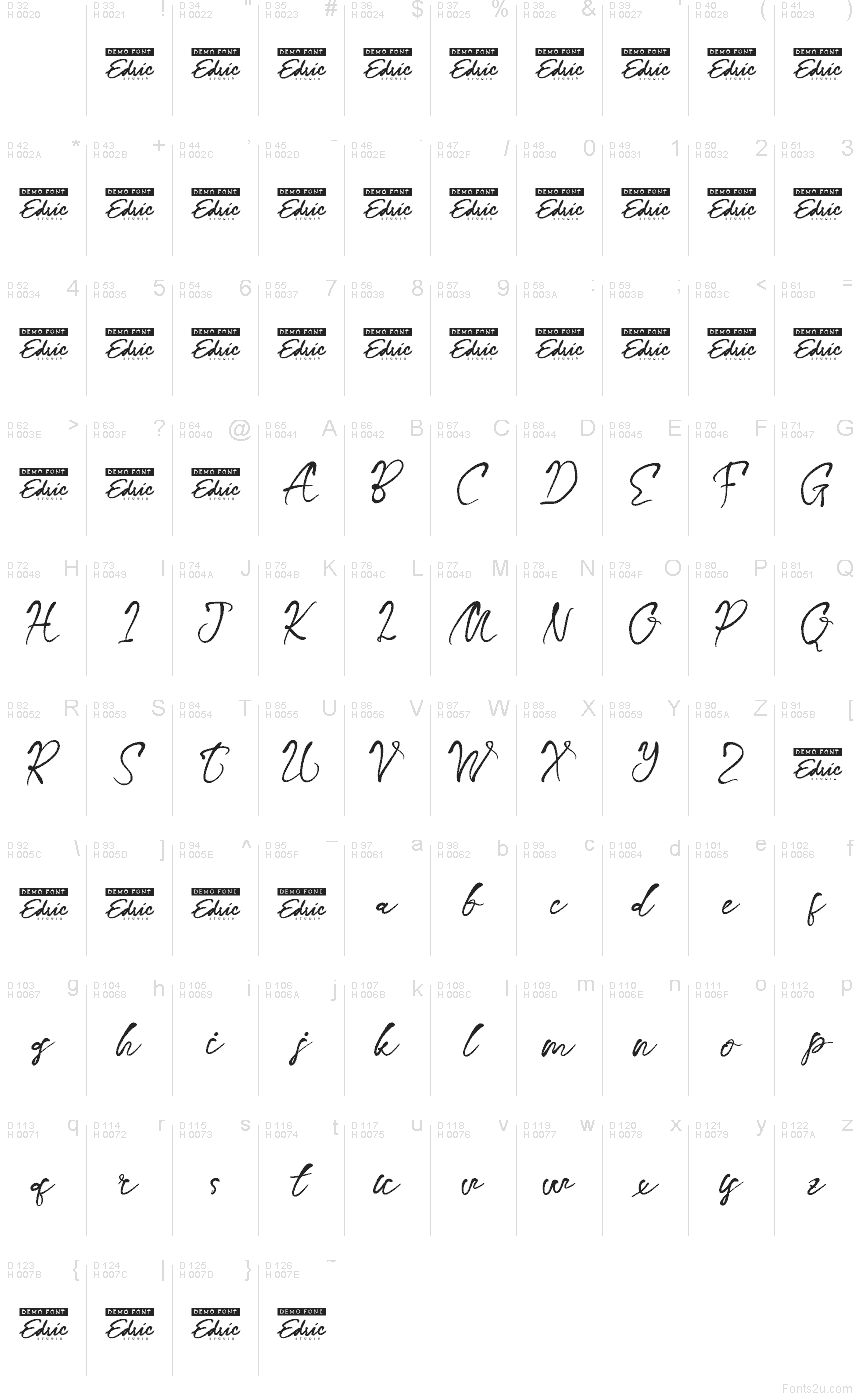
StephCarlyScriptDemo
Steph Carly Script font by Edric Studio is a free calligraphy font that captures the feel of quick, confident ink on smooth paper. Its flowing strokes, gentle rightward slant, and loose letter connections create a modern, romantic handwriting style that feels personal without being messy. The rhythm is airy and open, so words breathe nicely across a line and still read clearly at larger sizes.